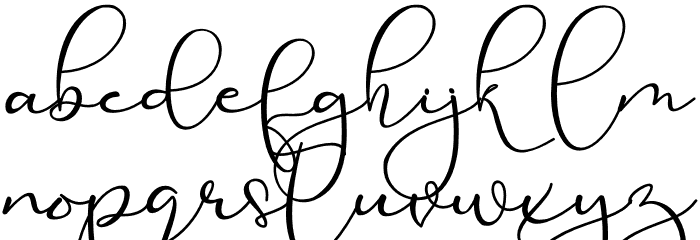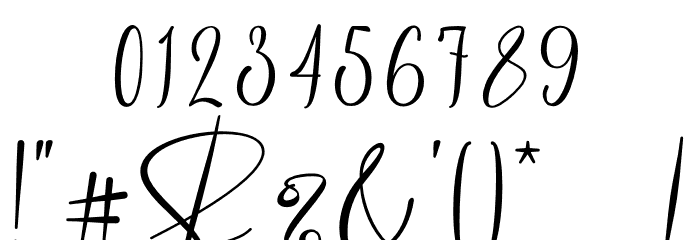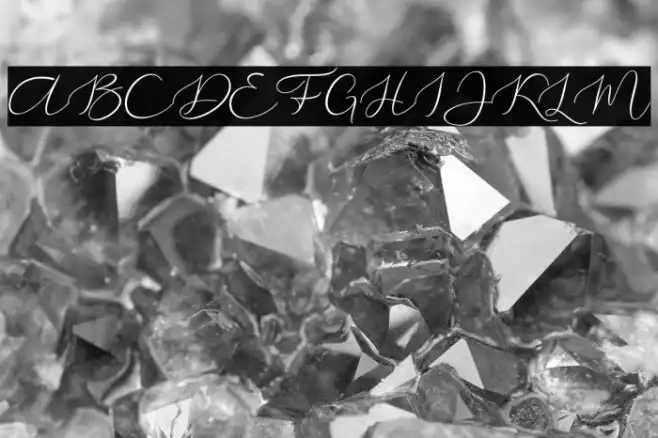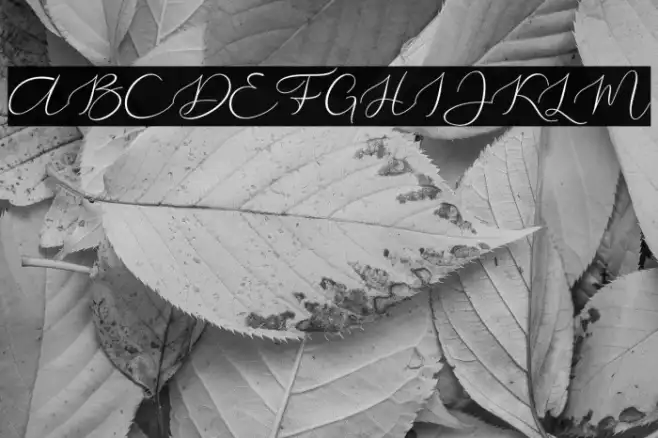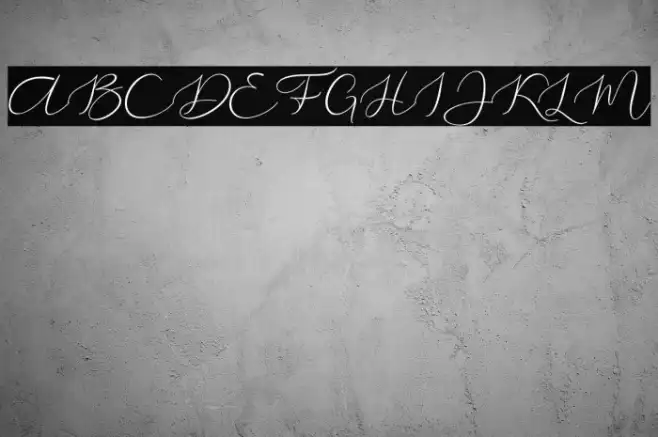
Elsabetha Font
This elegant script font features a flowing, cursive style with a sophisticated and graceful appearance. The uppercase letters are characterized by their sweeping curves and delicate loops, while the lowercase letters maintain a consistent fluidity that enhances readability. The numerals are distinct and stylish, complementing the overall aesthetic. Special characters are thoughtfully designed to match the font's refined look. This font exudes a sense of elegance and charm, making it ideal for formal invitations, branding, and decorative purposes.
A graceful script font with elegant, flowing cursive letters.
- Font: Elsabetha
- Proposed Projects: Ideal for wedding invitations, luxury branding, elegant stationery, and decorative projects.
- Category: Script
- Overall Style: Elegant, Decorative
- Use Case: Headlines, Invitations, Logos